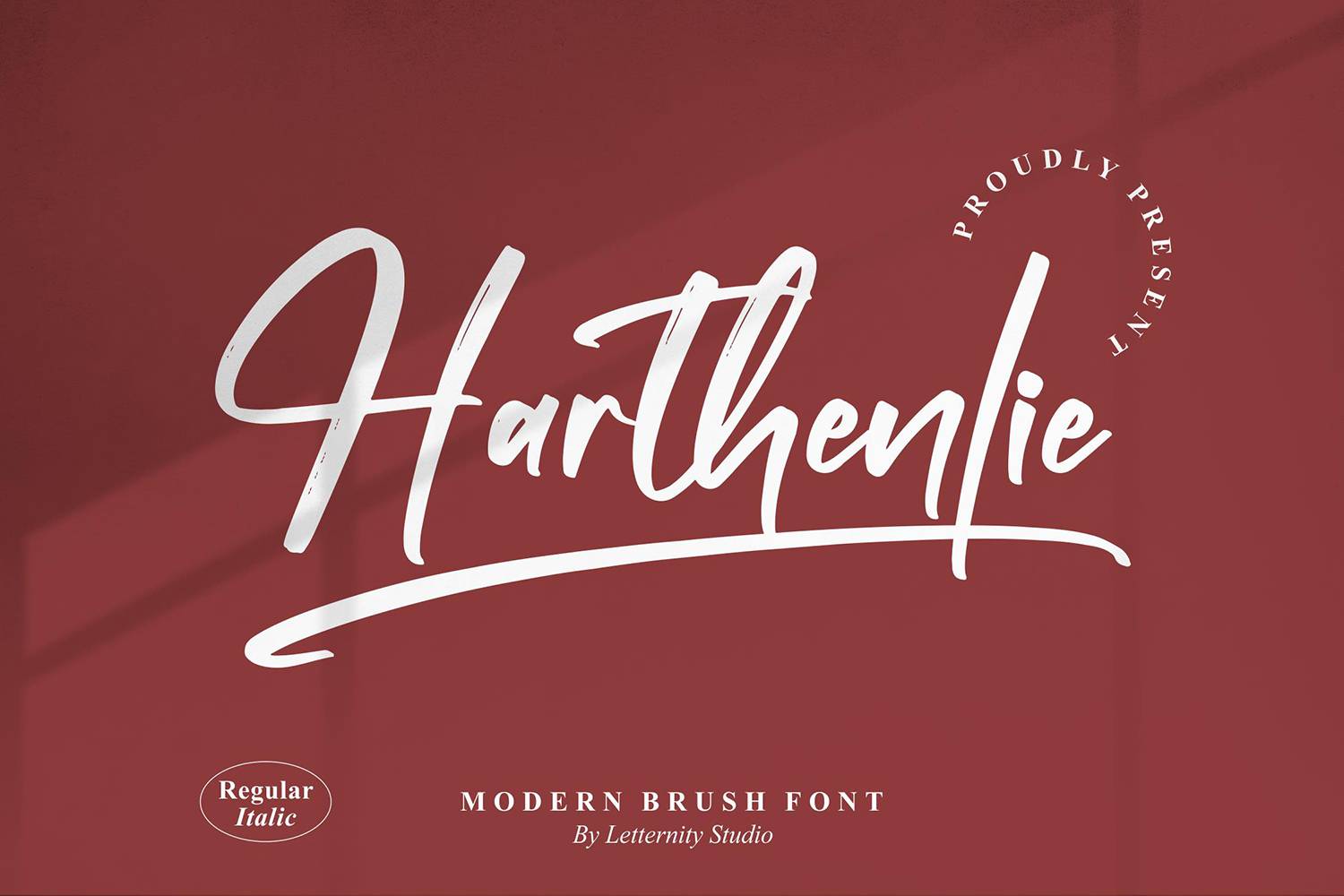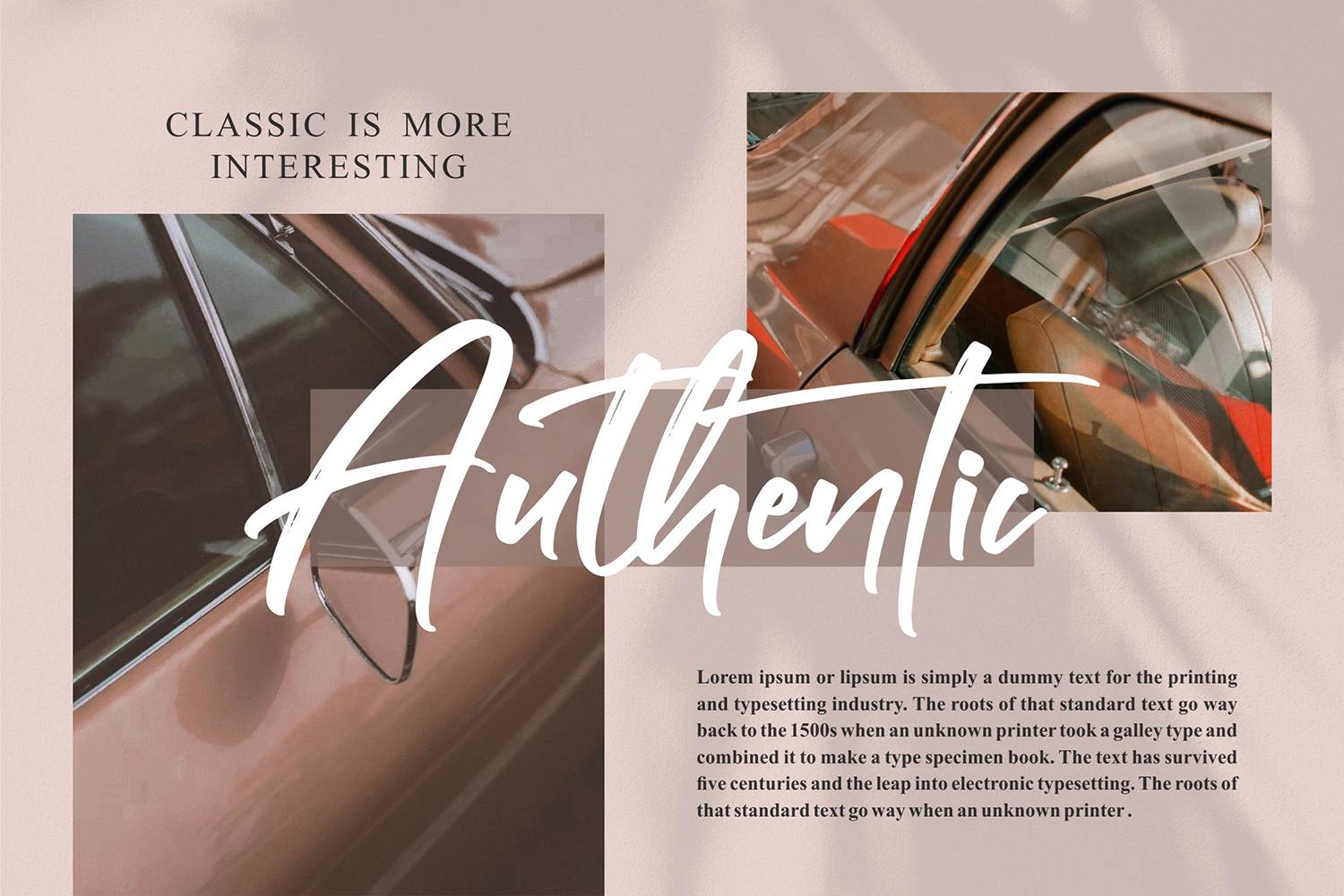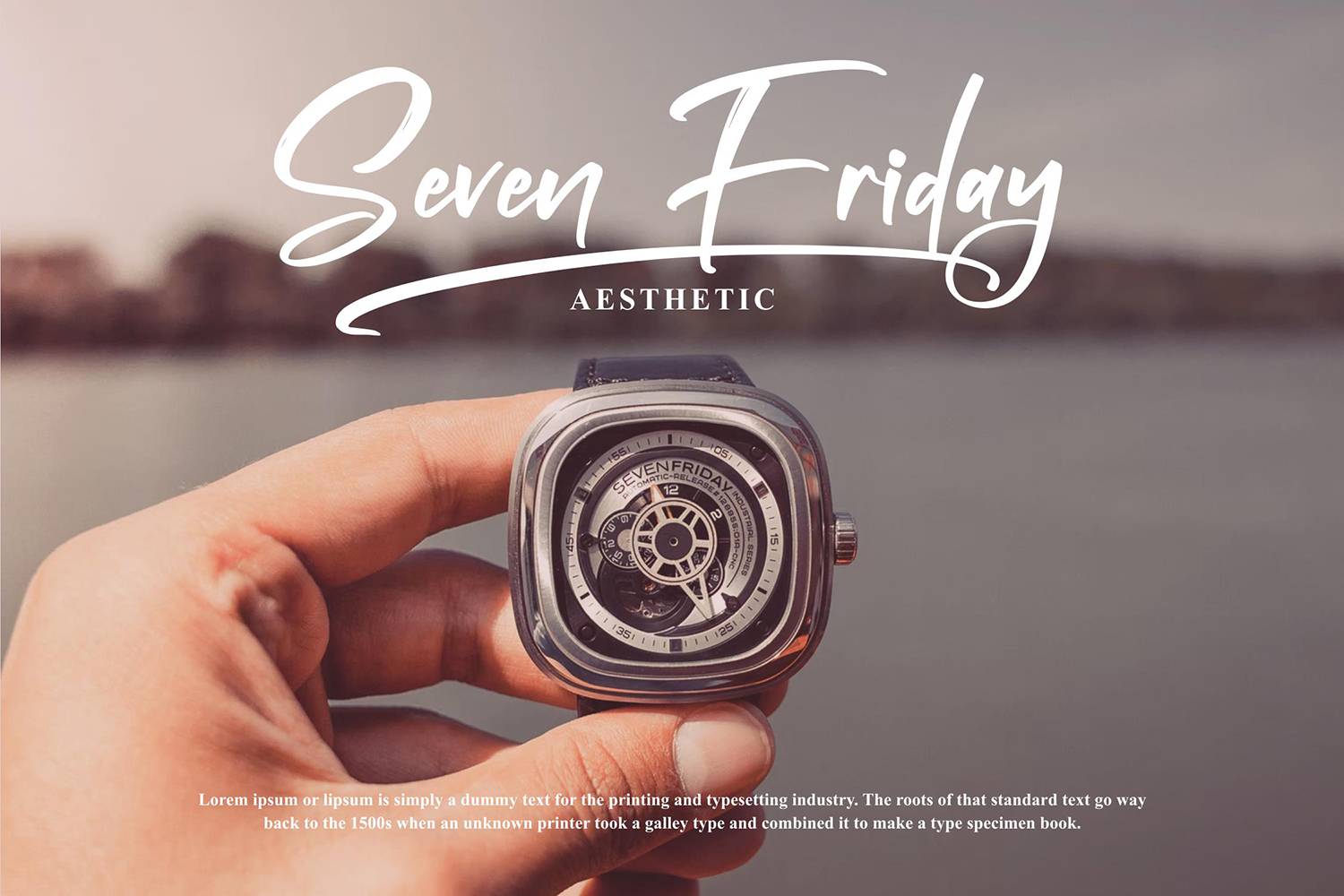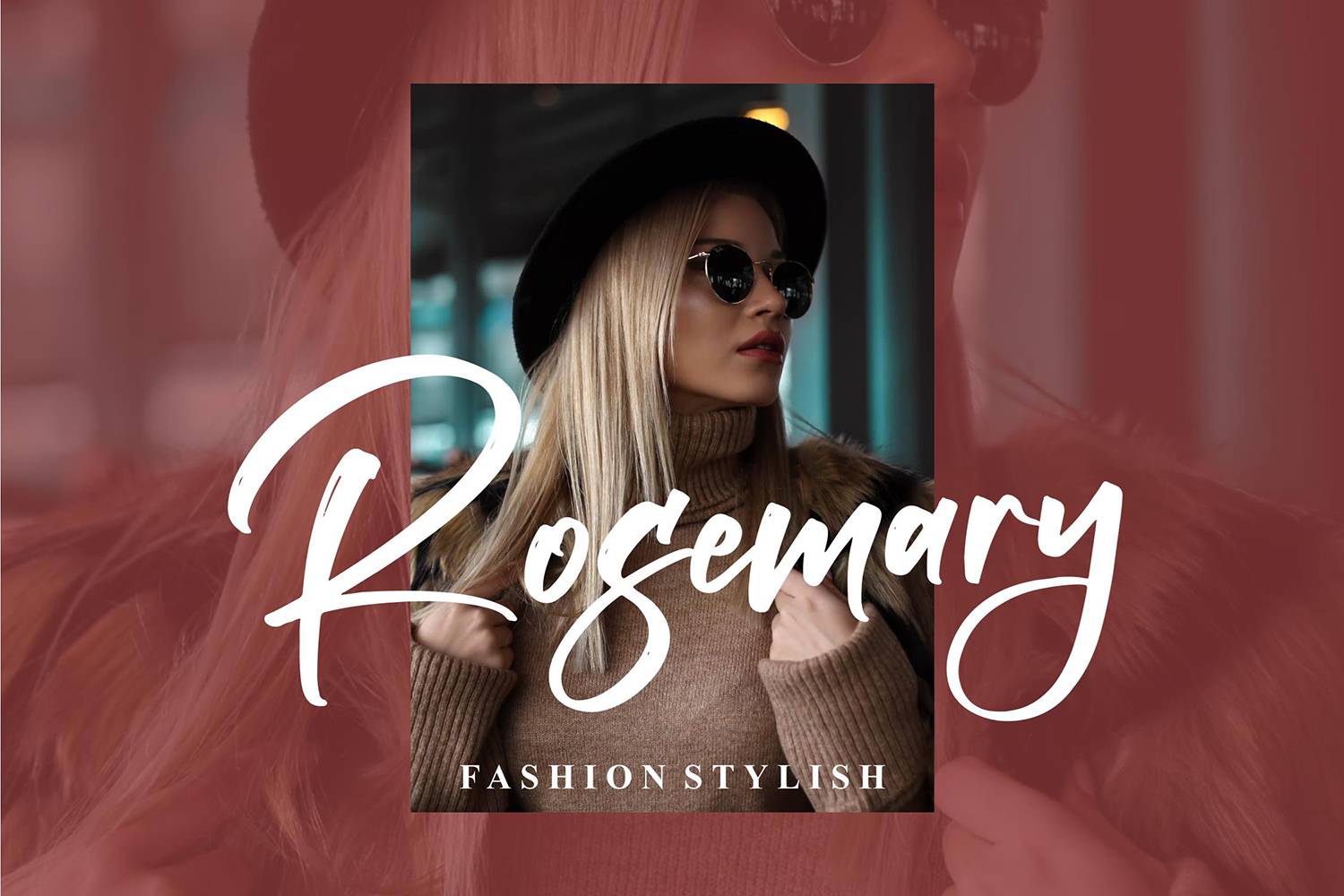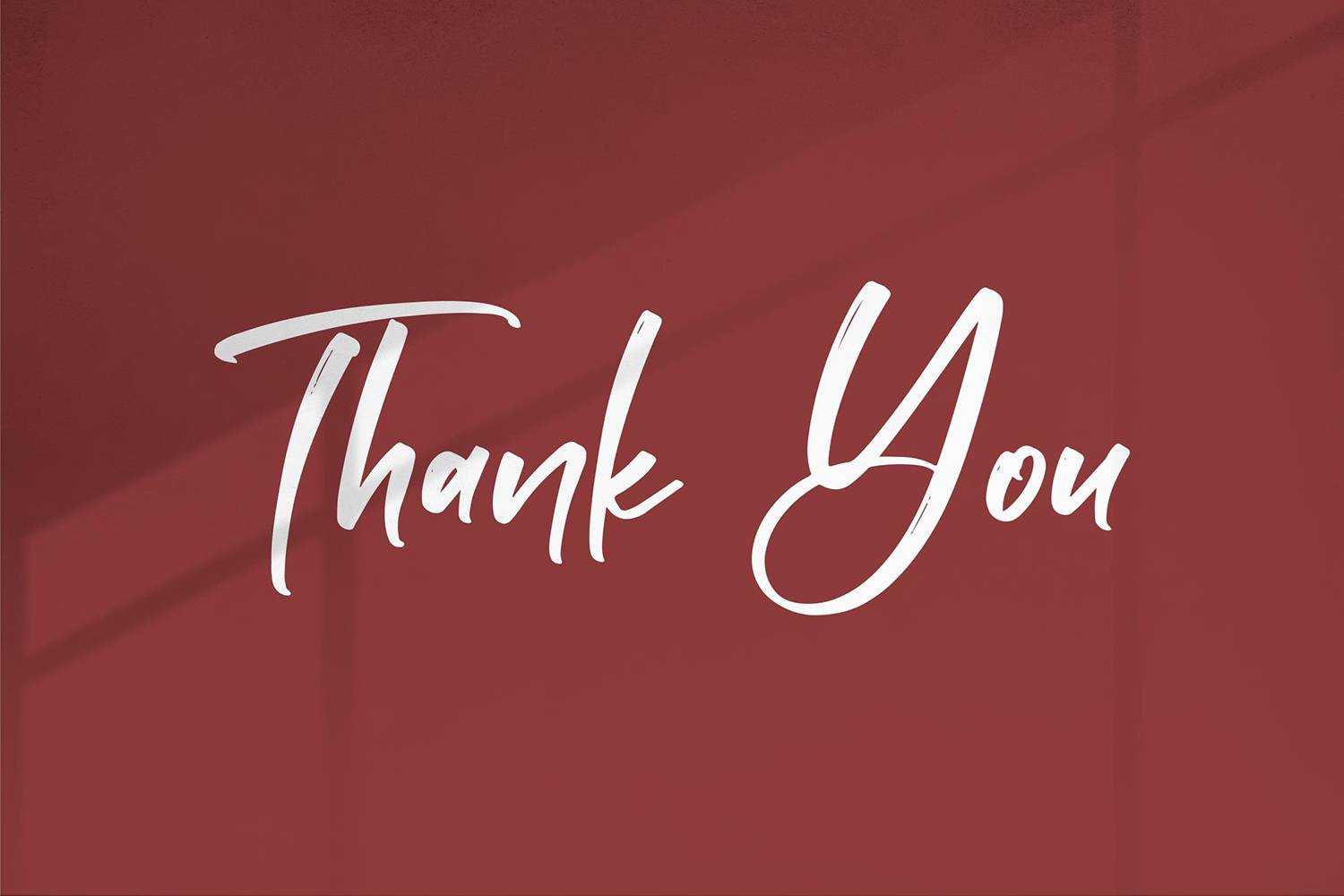
Harthenlie is a stylish script font with a lively, handwritten feel that combines elegance and modern flair. Its tall, flowing letterforms feature varied stroke widths and smooth, natural curves, making it perfect for adding a personal yet polished touch to branding, invitations, and creative projects. This font works especially well in logos and headlines where a dynamic and approachable look is desired.
Harthenlie Font
About Harthenlie Font